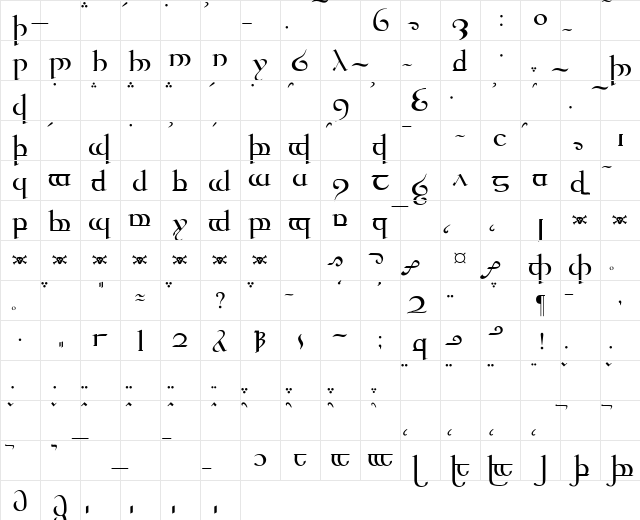
Tengwar Quenya Regular Font Preview
Tengwar Quenya Regular
Tengwar Quenya Regular Font Details
Design Context for Tengwar Quenya Typeface
Tengwar Quenya is a composed and adaptable typeface that performs quietly and consistently across a wide range of design contexts.
Pro Tip: Use Tengwar Quenya in both headline and body roles to test its range before committing to a single application.